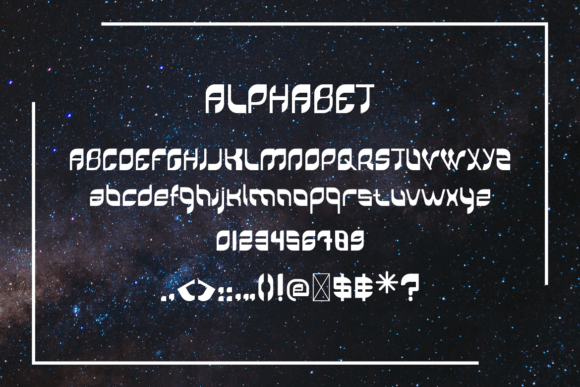
Amsolikin Font: The Ultimate Display Font for Bold Branding
In the world of typography, fonts play a crucial role in shaping the identity of a brand. A well-designed font can elevate a brand’s visual appeal, convey its personality, and leave a lasting impression on its audience. If you’re a designer, craftsperson, or brand owner looking for a bold and authentic display font, look no further than Amsolikin Font. In this article, we’ll explore the features, benefits, and uses of Amsolikin Font, and why it’s an excellent choice for your next branding project.
What is Amsolikin Font?
Amsolikin Font is a bold and authentic display font designed to make a statement. Its unique and eye-catching design makes it perfect for branding projects that require a strong visual presence. Whether you’re creating a logo, designing a t-shirt, or developing an esports brand, Amsolikin Font is an excellent choice. Its versatility and legibility ensure that it will look outstanding in a wide range of contexts, from digital platforms to print materials.
Key Features of Amsolikin Font
- Bold and Authentic Design: Amsolikin Font boasts a bold and authentic design that commands attention. Its unique letterforms and geometric shapes create a distinctive visual identity that’s hard to ignore.
- Highly Legible: Despite its bold design, Amsolikin Font is highly legible, even at smaller sizes. This makes it perfect for use in a variety of applications, from logos and headlines to body text.
- Versatile: Amsolikin Font is an incredibly versatile font that can be used in a wide range of contexts, from digital platforms to print materials. Its flexibility makes it an excellent choice for designers and craftspersons who need a font that can adapt to different mediums.
Benefits of Using Amsolikin Font
So, why choose Amsolikin Font for your branding project? Here are just a few benefits of using this exceptional display font:
- Stand Out from the Crowd: Amsolikin Font’s bold and authentic design ensures that your brand will stand out from the competition. Its unique visual identity will help you grab attention and leave a lasting impression on your audience.
- Enhance Your Brand’s Personality: Amsolikin Font’s distinctive design allows you to convey your brand’s personality and values. Whether you’re a bold and adventurous brand or a sophisticated and elegant one, Amsolikin Font can help you express your unique identity.
- Increase Legibility: Amsolikin Font’s high legibility ensures that your message will be clear and easy to read, even at smaller sizes. This makes it perfect for use in a variety of applications, from logos and headlines to body text.
Use Cases for Amsolikin Font
Amsolikin Font is an incredibly versatile font that can be used in a wide range of applications. Here are just a few examples of how you can use Amsolikin Font in your branding projects:
- Logo Design: Amsolikin Font’s bold and authentic design makes it perfect for logo design. Its unique letterforms and geometric shapes create a distinctive visual identity that’s hard to ignore.
- T-Shirt Printing: Amsolikin Font’s bold design and high legibility make it an excellent choice for t-shirt printing. Its versatility ensures that it will look great on a variety of fabrics and colors.
- Esports Branding: Amsolikin Font’s bold and adventurous design makes it perfect for esports branding. Its unique visual identity will help you stand out in a competitive market and appeal to a young and dynamic audience.